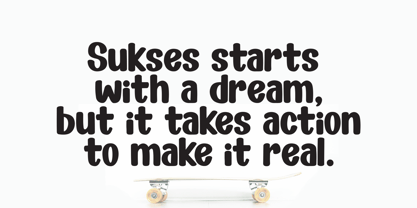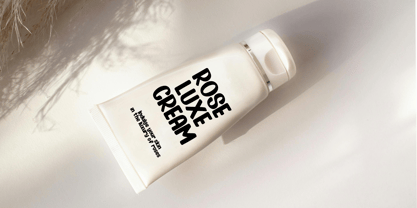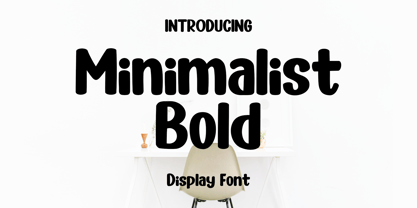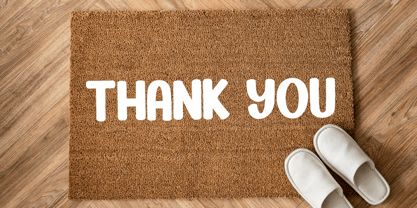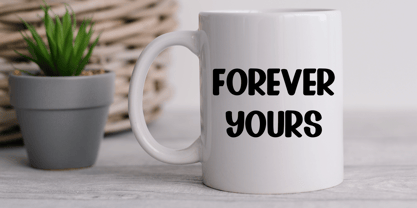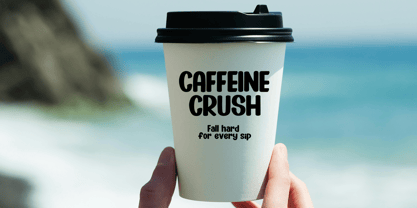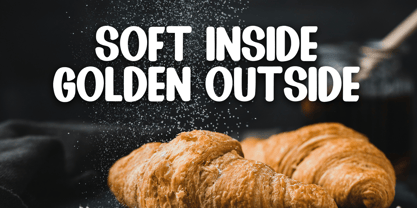
Minimalist Bold
by Fontysia
The Minimalist Bold Font Family was designed by Rizal Aiyub and published by Fontysia. Minimalist Bold contains 1 styles.
Minimalist Bold is simple display font is a clean, minimalistic typeface designed for maximum readability and visual clarity. It uncomplicated letterforms that make it perfect for showcasing text in large sizes, such as in headlines, titles, or prominent signage. The font’s straightforward design allows it to convey messages clearly without unnecessary embellishments, making it a versatile choice for modern, professional, and aesthetically simple designs. It is ideal for applications that require a balance of simplicity and style. Perfect for Headlines and Titles, Branding and Logos, Website Typography, Posters and Flyers, Social Media Graphics, Product Packaging, Invitations and Event Announcements, Editorial Design, Mobile Applications, and Infographics.
Designers: Rizal Aiyub
Publisher: Fontysia
Foundry: Fontysia
Design Owner: Fontysia